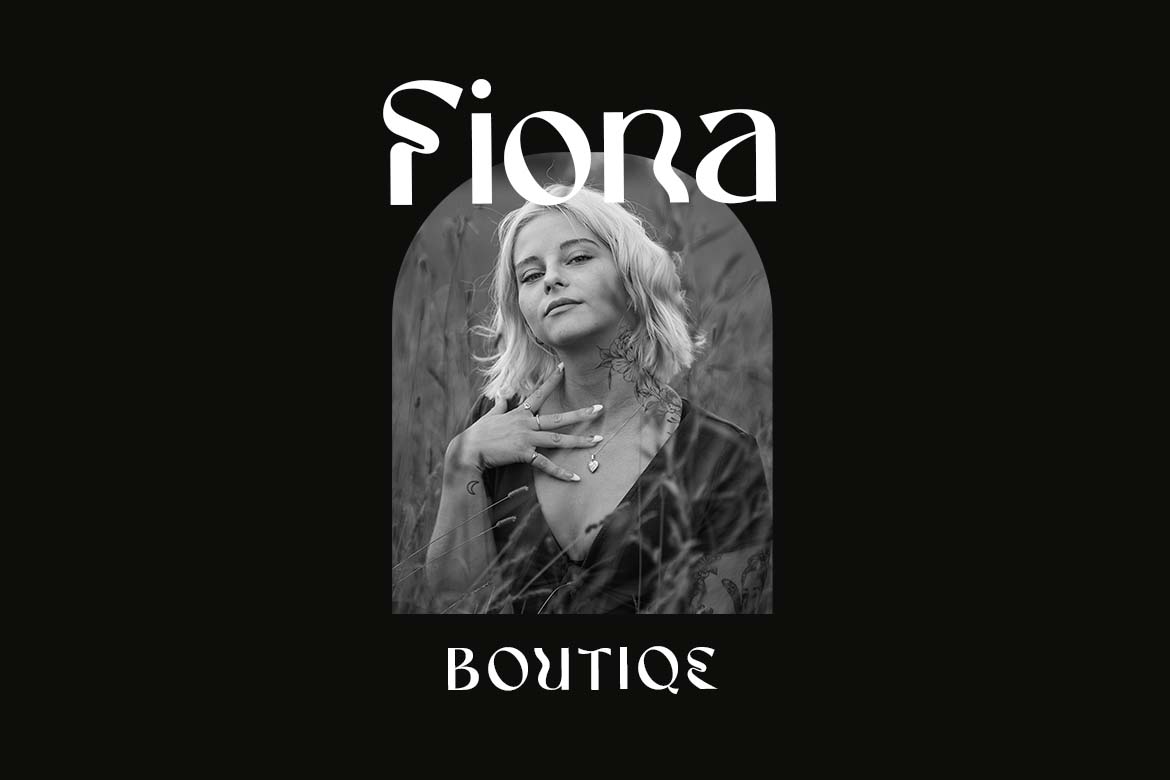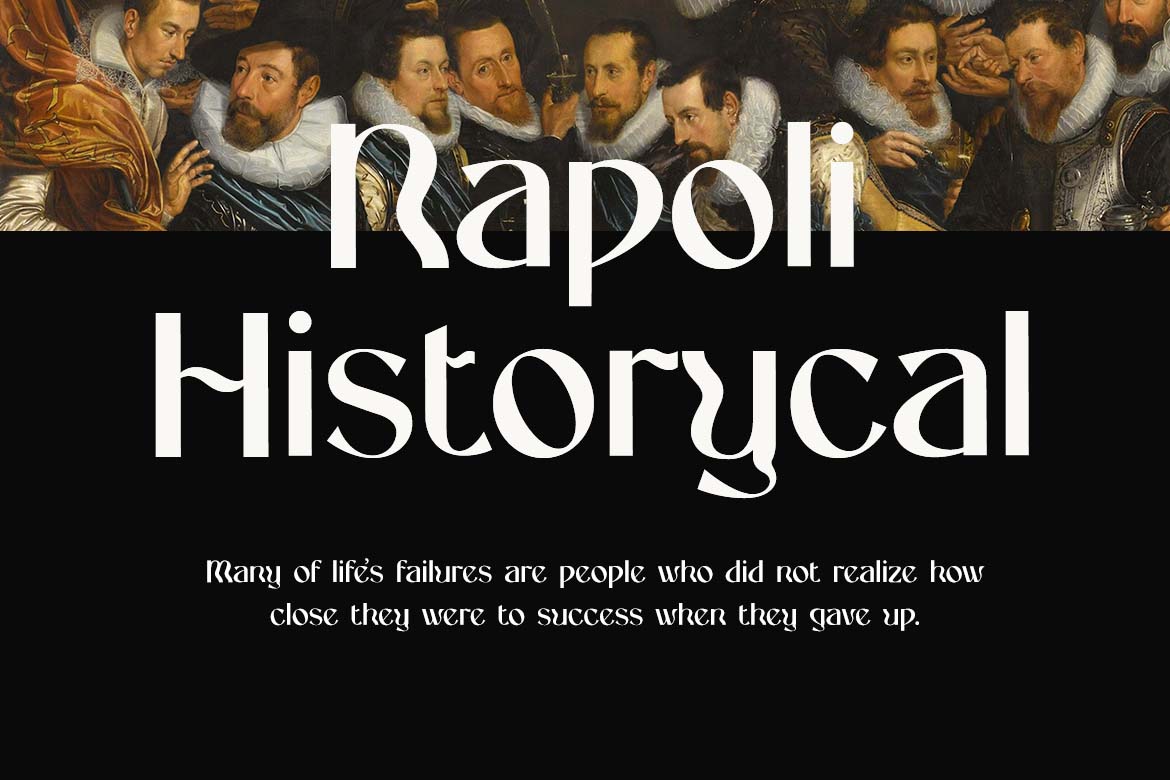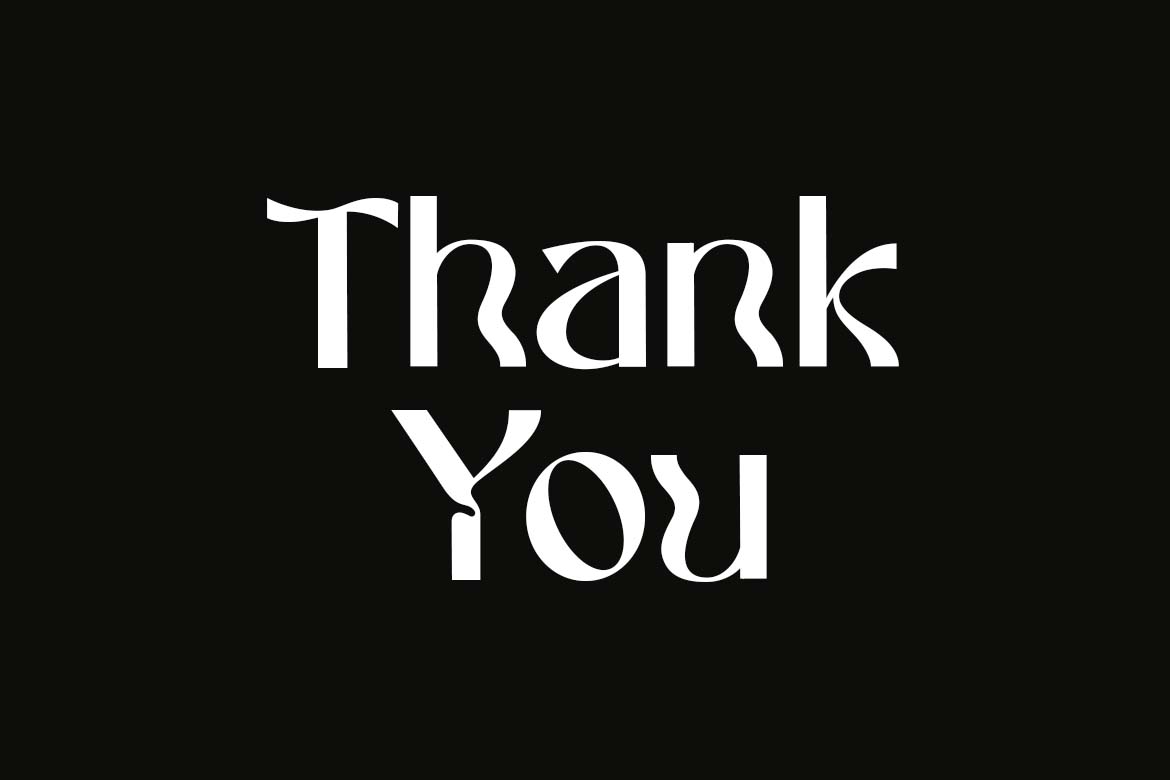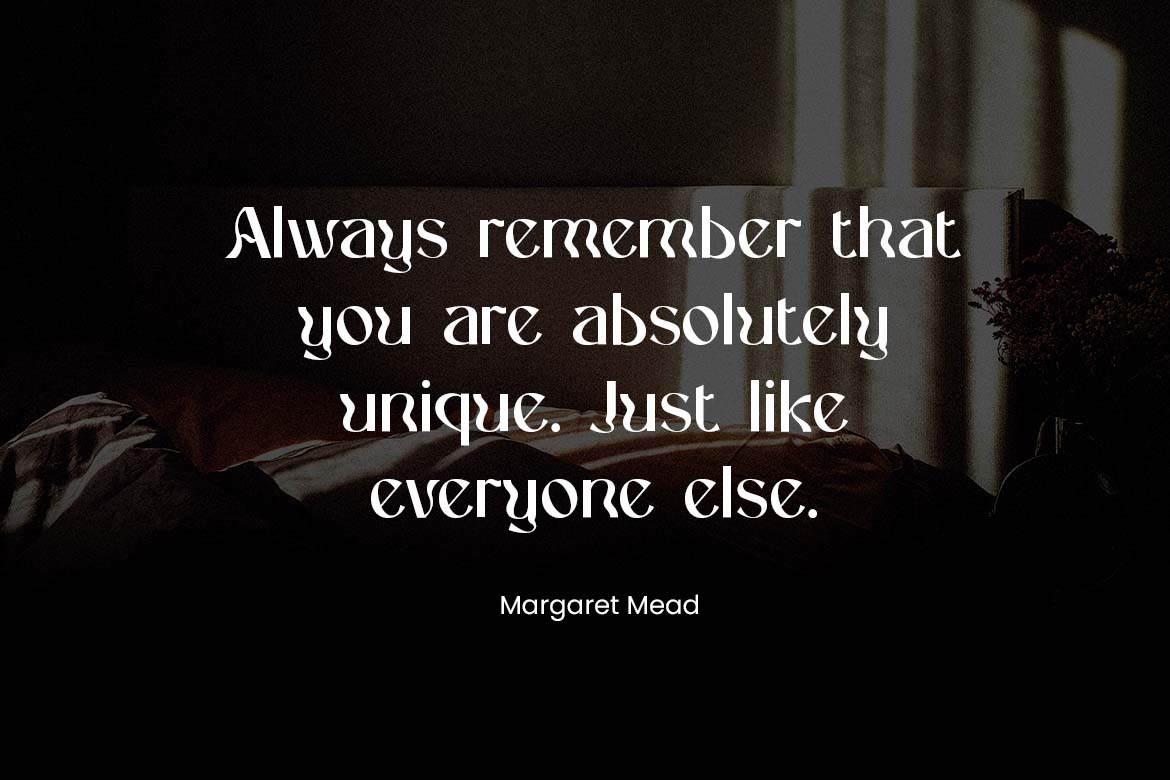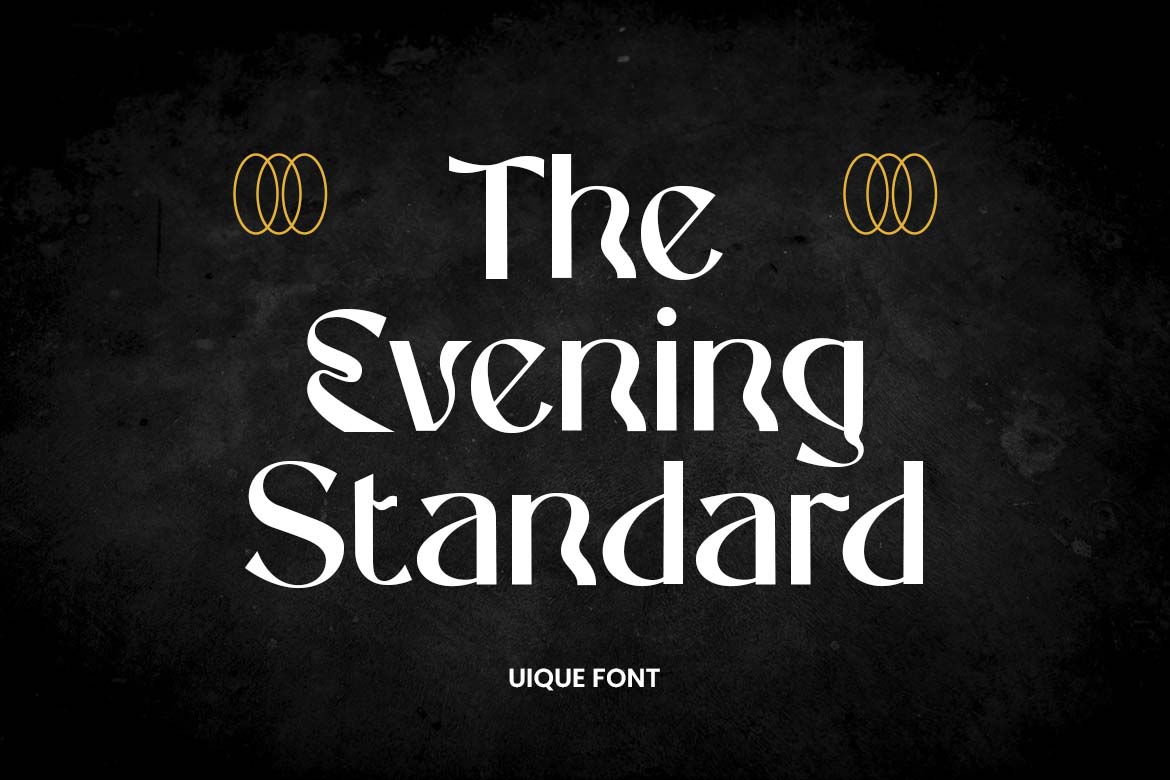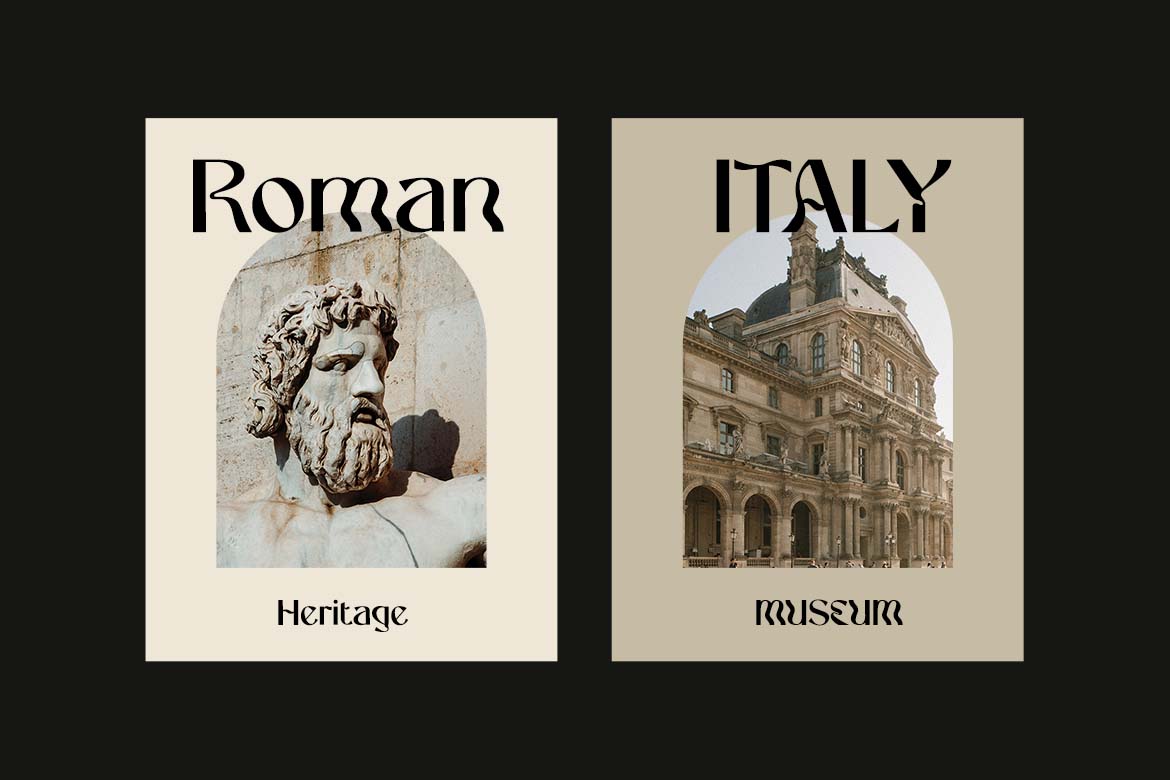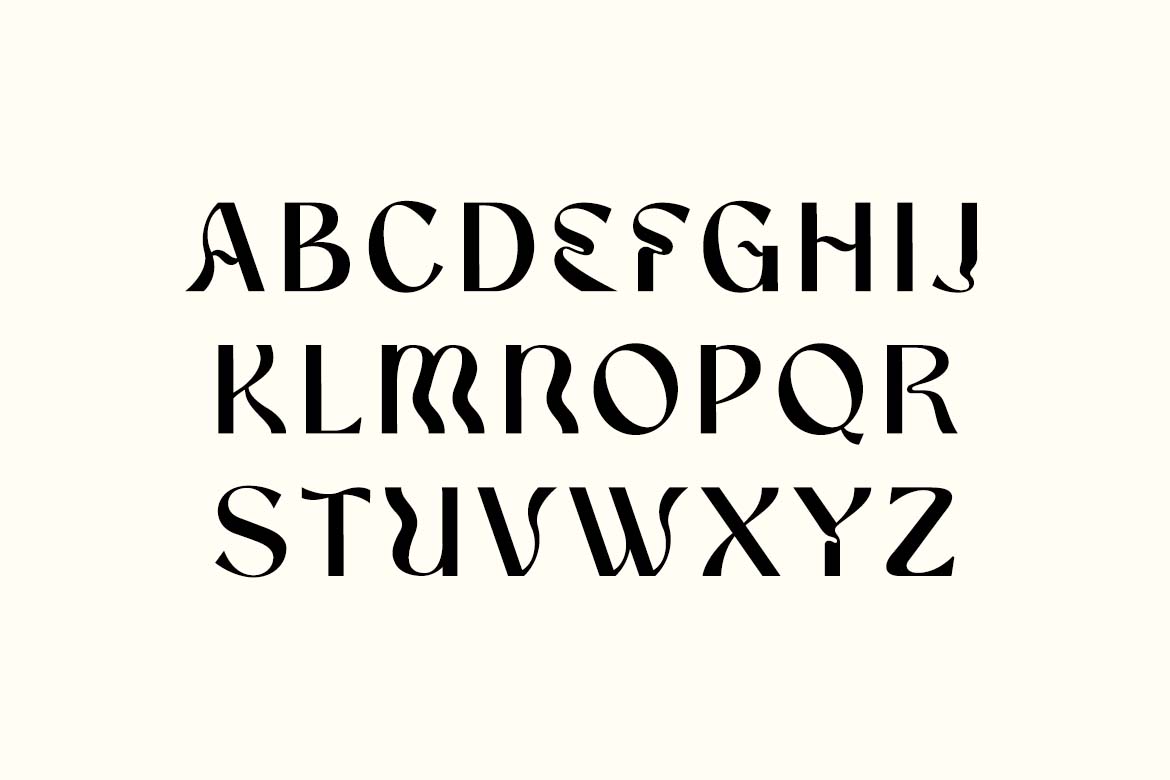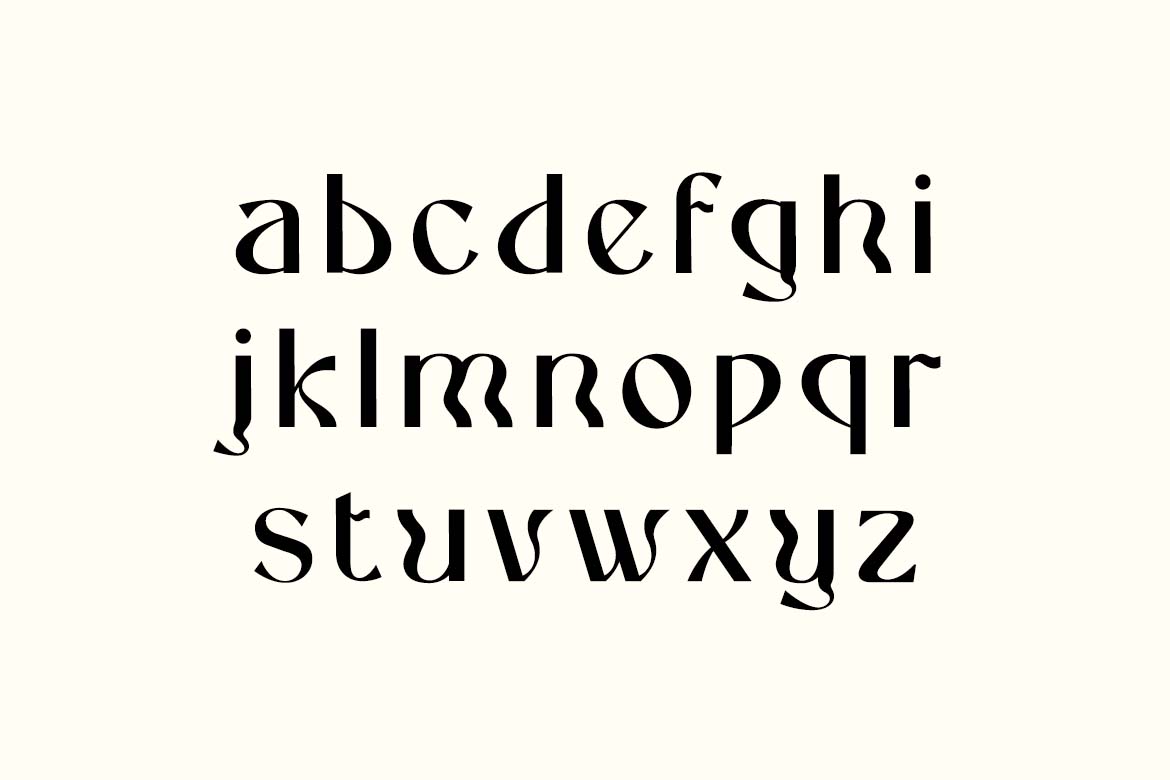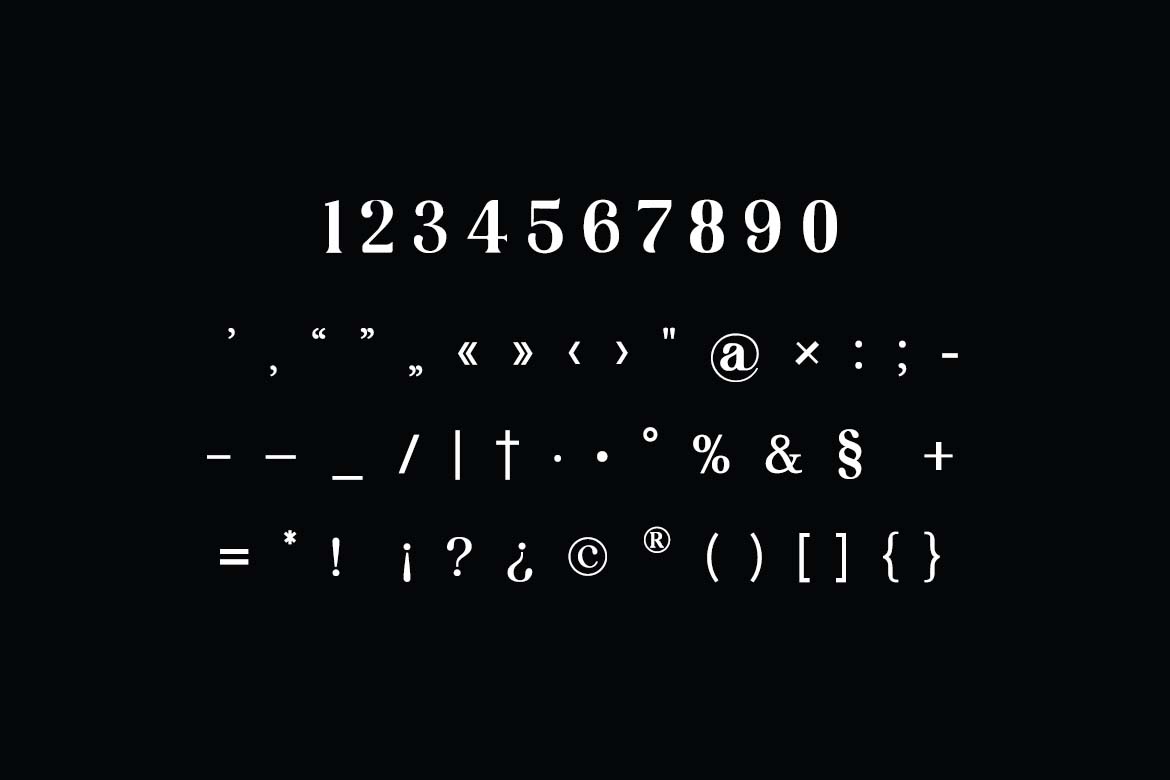
Quirkster Unique Display Sans Serif Font
Quirkster Unique Display Sans Serif Font. The modern display font feels beautiful classy, elegant, and stylish. This font is ideally suited for a wide variety of projects, such as signature, stationery, logo, wedding, typography quotes, magazine or book covers, website headers, branding, and more. Also, fashion-related branding or editorial design displays both masculine and feminine qualities.